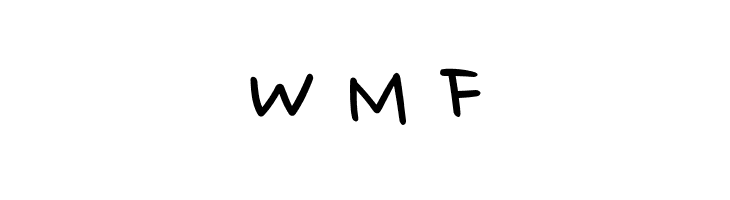
Nanum Pen Font
A casual, handwritten-style font with smooth, flowing lines and a friendly appearance.
Nanum Pen Script Font
A casual, handwritten-style font with smooth curves and consistent stroke width.
Boeticher-Regular Font
A bold, decorative font with rounded serifs and consistent spacing, perfect for headlines.
NimbusRomNo9L-MedIta Font